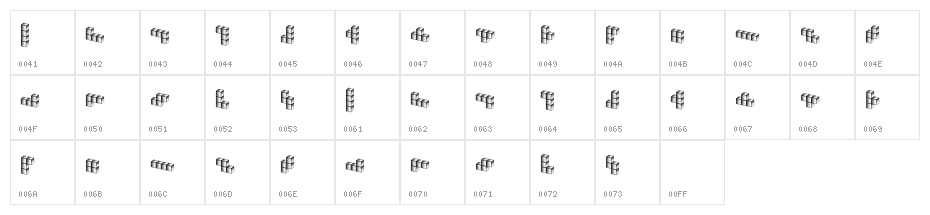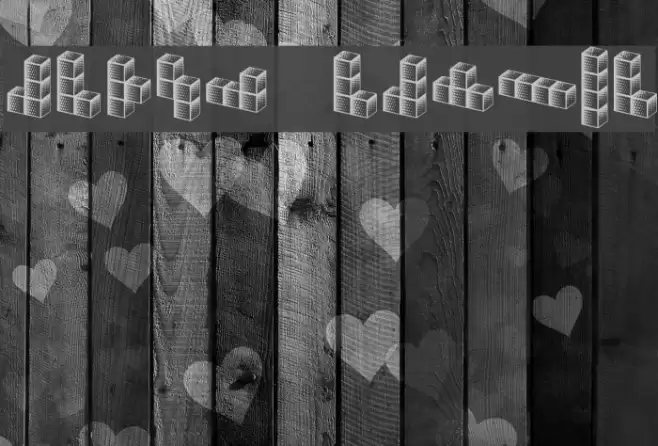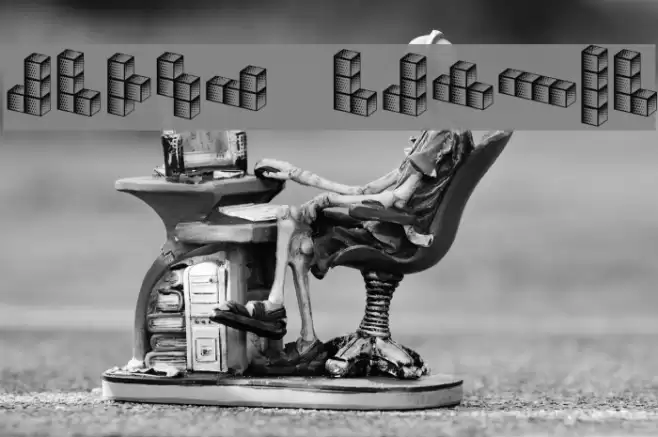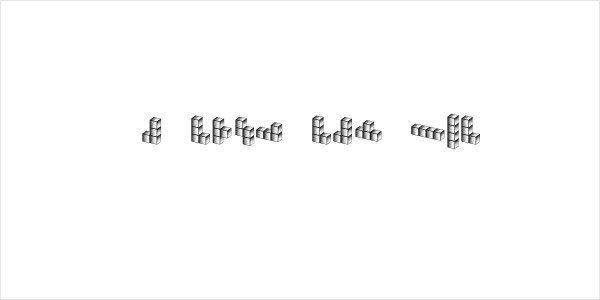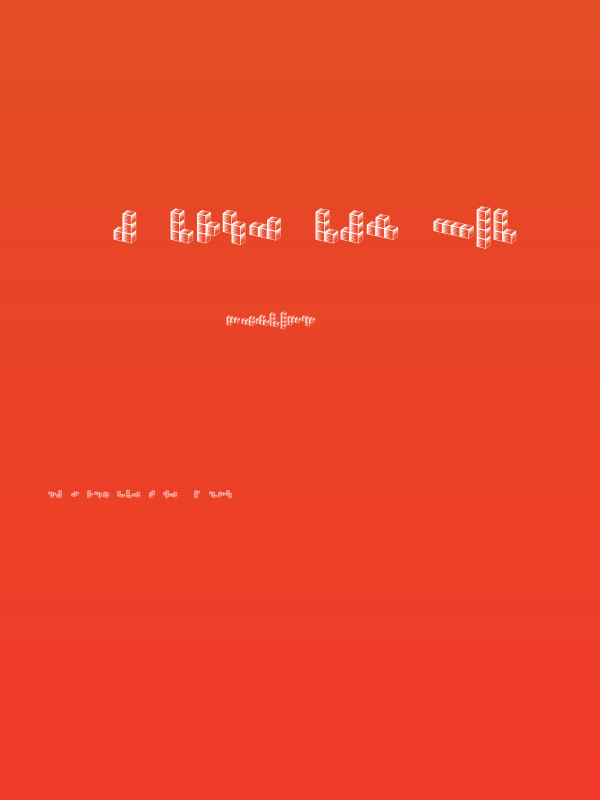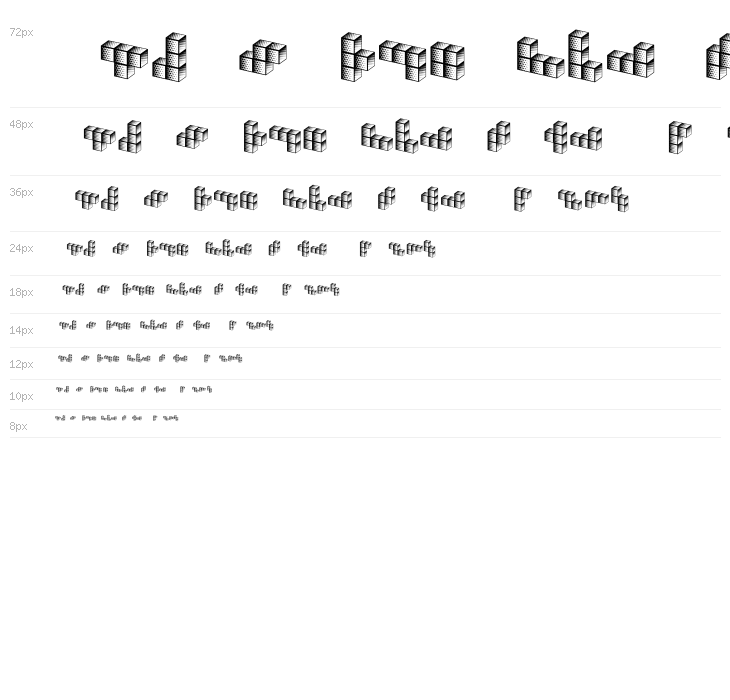
Tetriso Regular Font
Tetriso Regular Description
This font features a unique 3D block design reminiscent of classic video game graphics. Each character is constructed from stacked cubes, creating a playful and geometric aesthetic. The font's isometric perspective gives it a sense of depth and dimension, making it stand out in any design. The detailed shading on each block adds texture and visual interest, enhancing the overall appearance. This font is ideal for projects that aim to capture a retro or digital feel, offering a nostalgic nod to early gaming culture. Its bold and structured form ensures readability while maintaining a distinctive style.
Overall StyleRetro, Geometric
Proposed ProjectsIdeal for video game titles, retro-themed posters, and digital art projects.